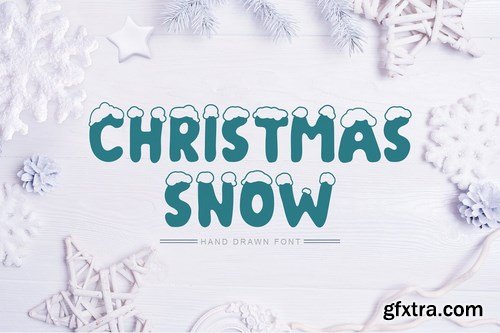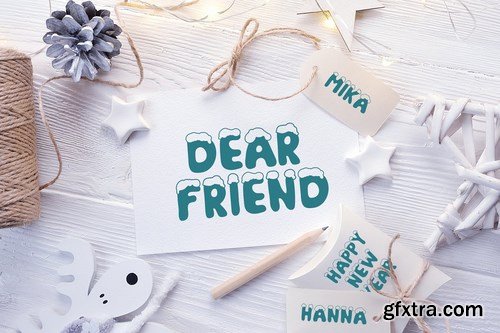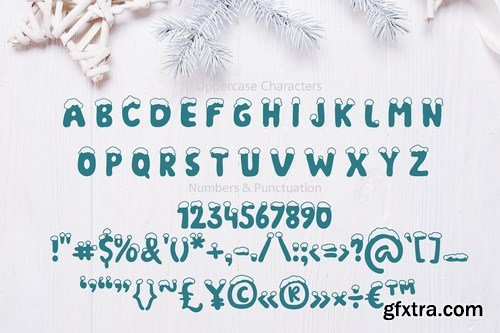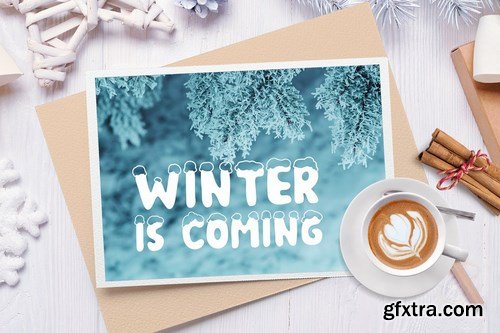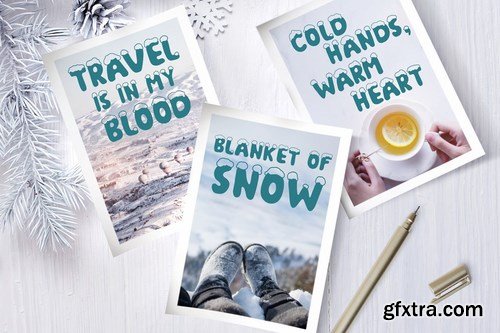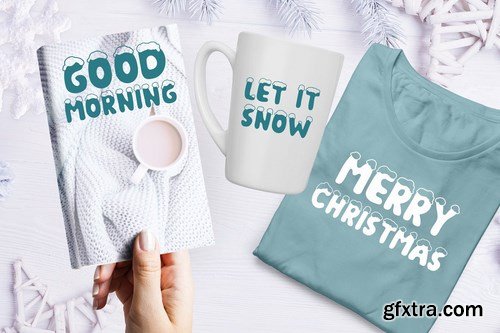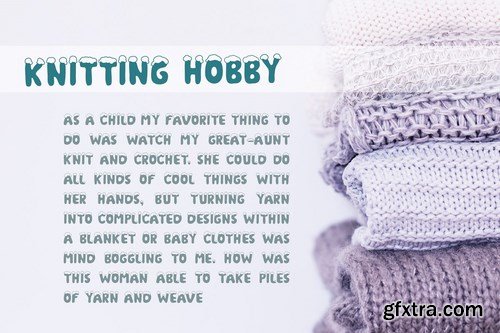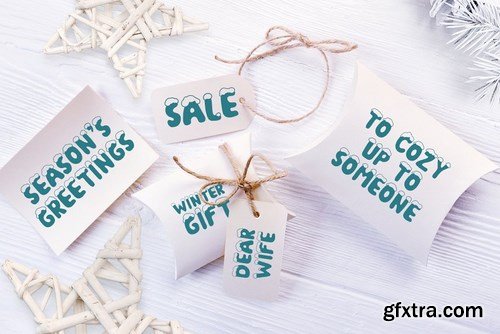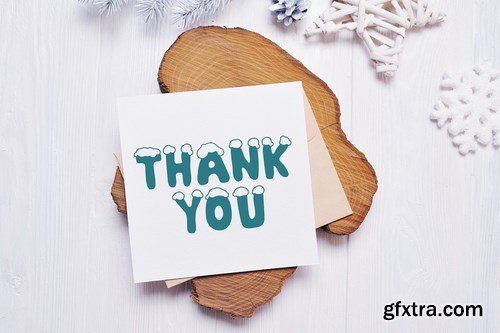
Winter handmade Christmas Snow Hand Drawn Font is modern display font. Christmas Snow Hand Drawn Font is beautiful instrument for designers, blogers and everybody who loves doodle scandinavian or hygge style.